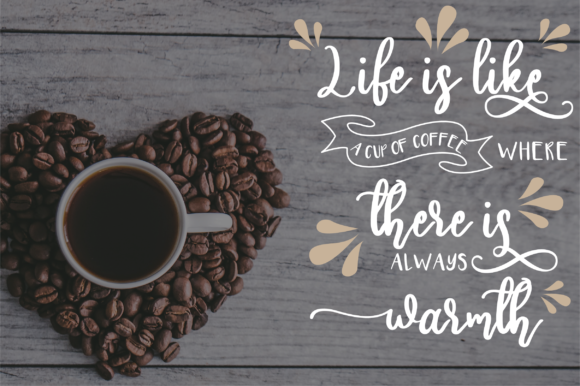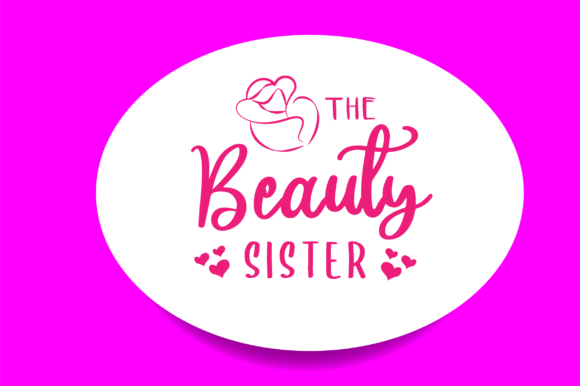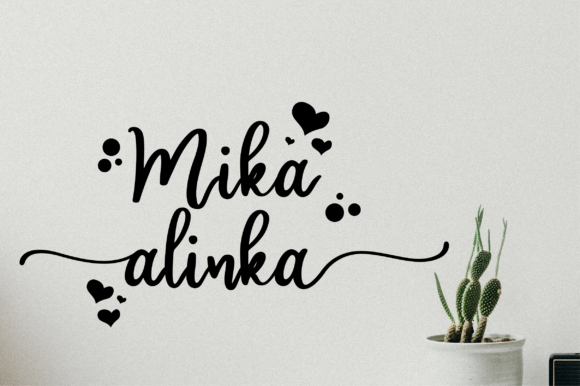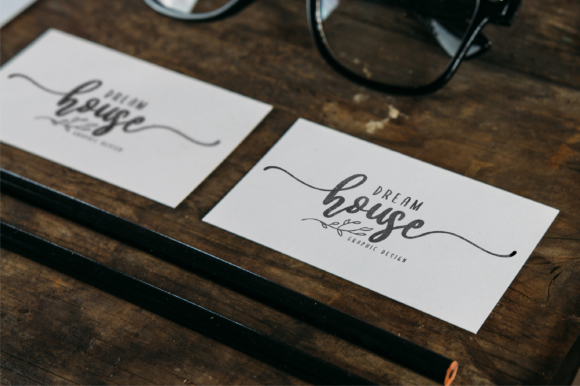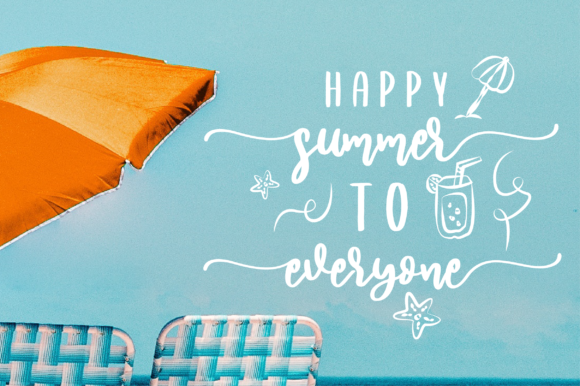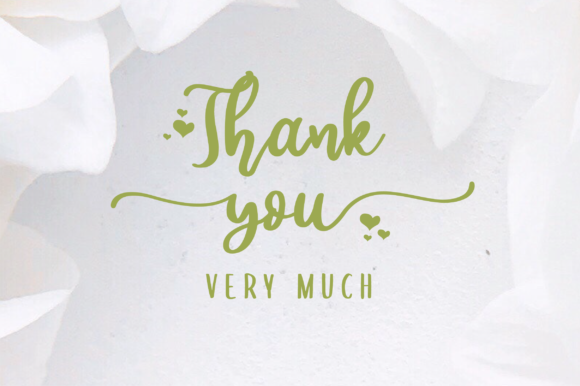
Hilda Font
About Hilda Font
Hilda is a beautiful script font that offers you a personal touch to your latest project. It is perfectly suited for a wide variety of projects!